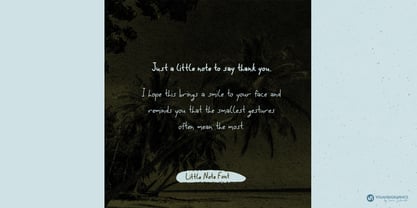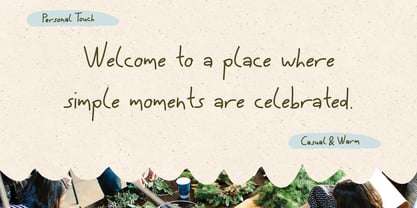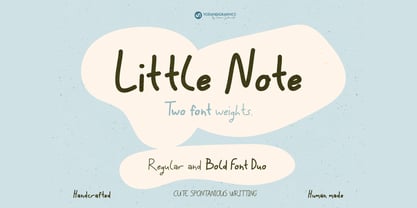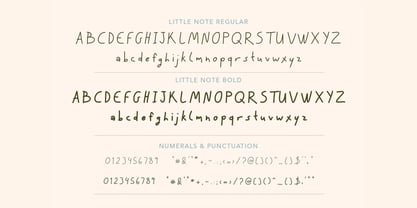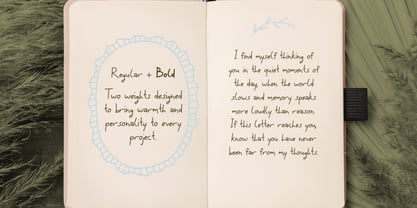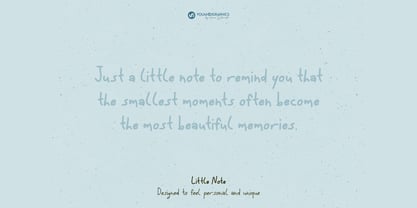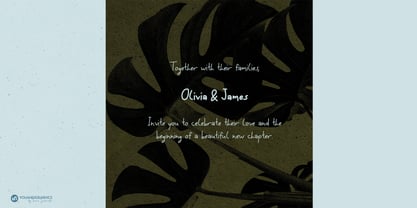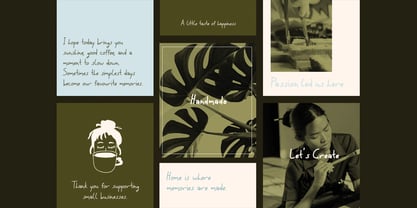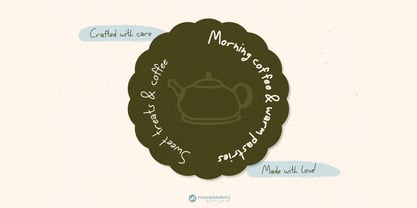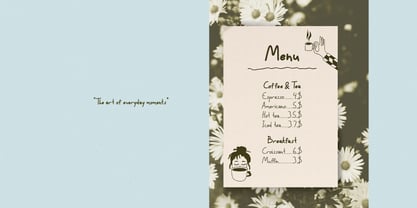
Little Note
The Little Note Font Family was designed by Irene Demetri and published by Youandigraphics. Little Note contains 2 styles and family package options. More about this family
Little Note is a handcrafted handwritten font duo inspired by spontaneous penmanship, personal notes, and the charm of everyday handwriting.
Designed entirely by hand, both the Regular and Bold styles embrace natural imperfections, creating an authentic, relaxed, and approachable feel. Whether you're adding a personal touch to branding or creating heartfelt stationery, Little Note brings warmth, personality, and a genuine handwritten character to every design.